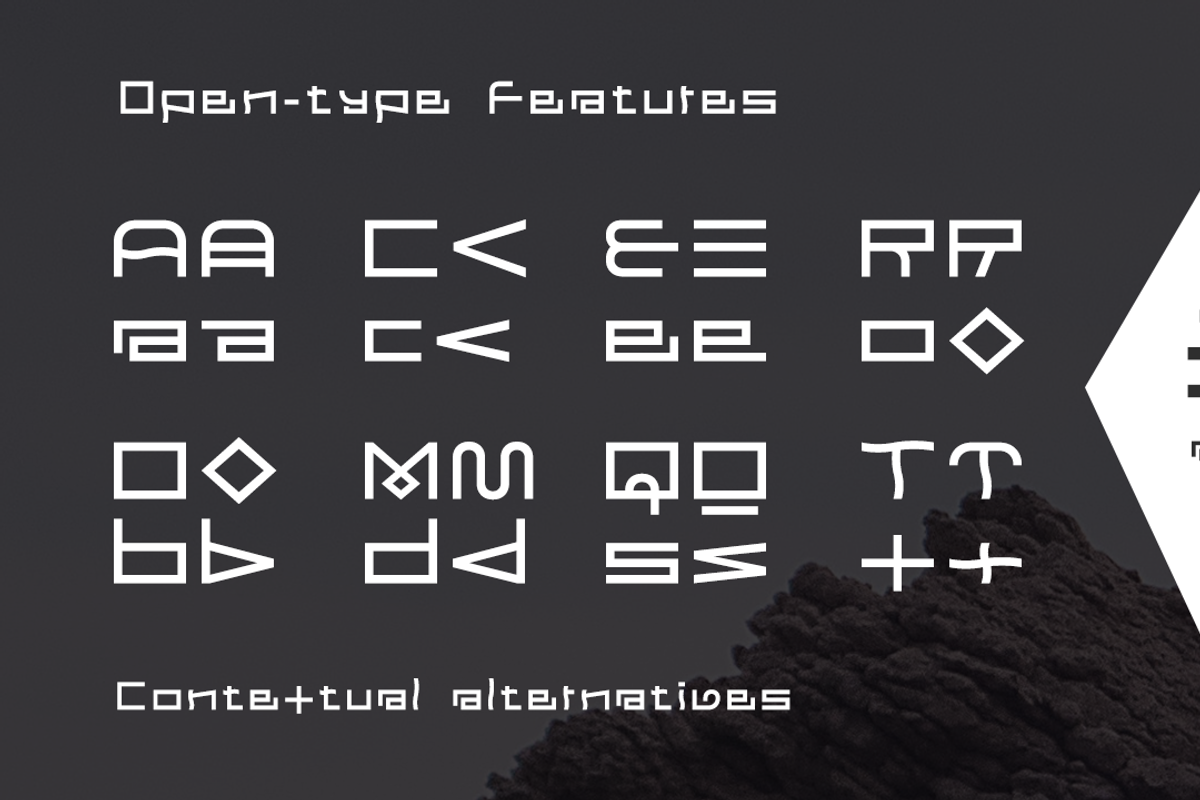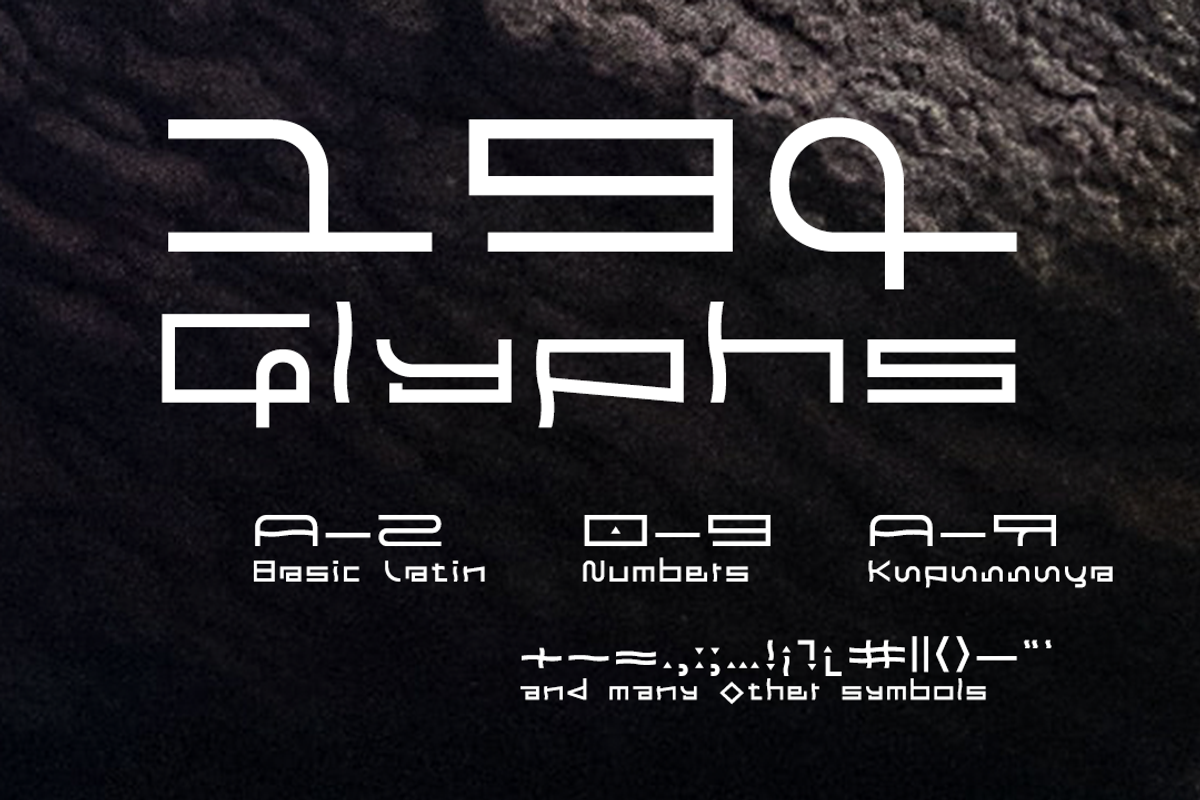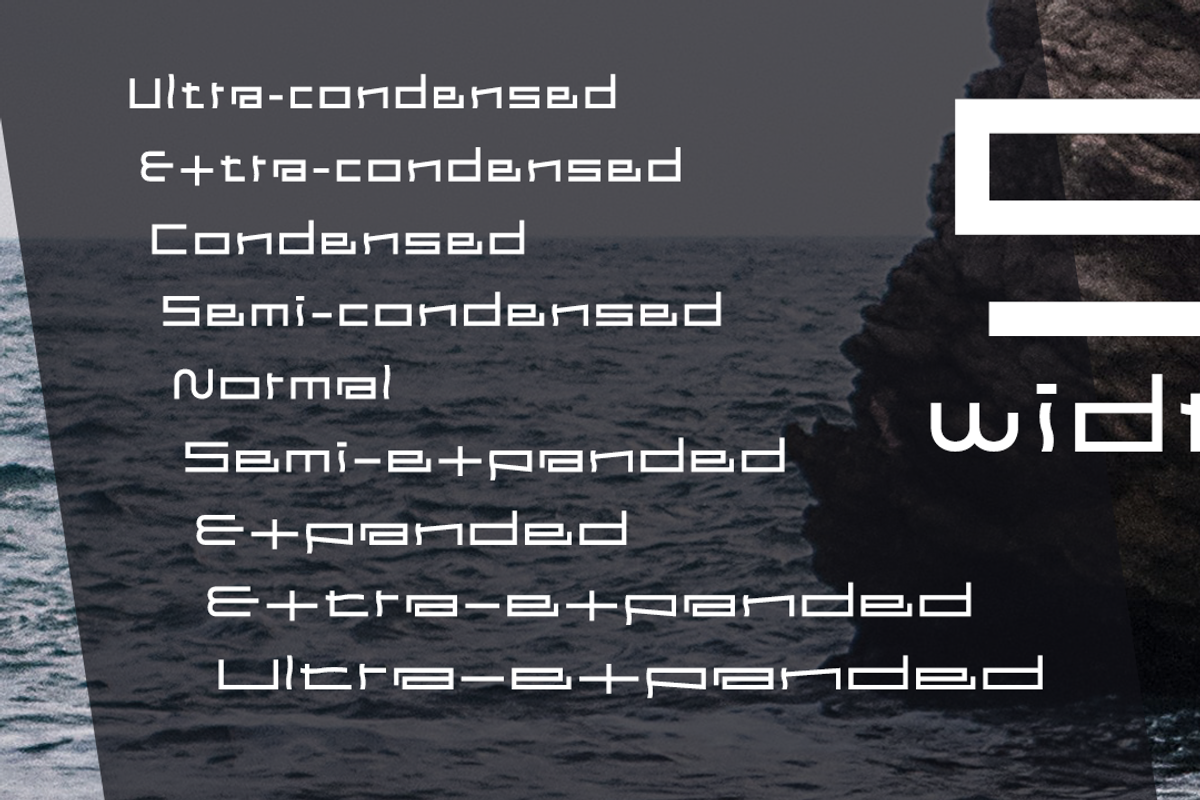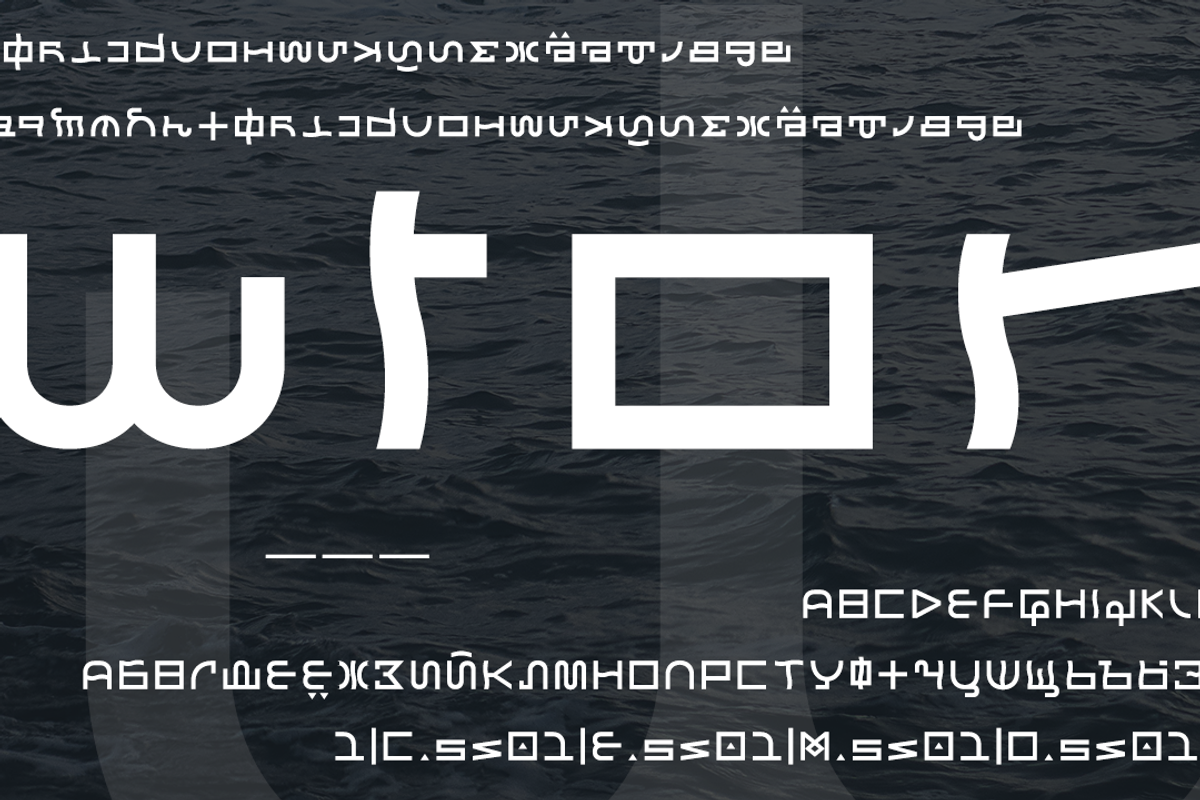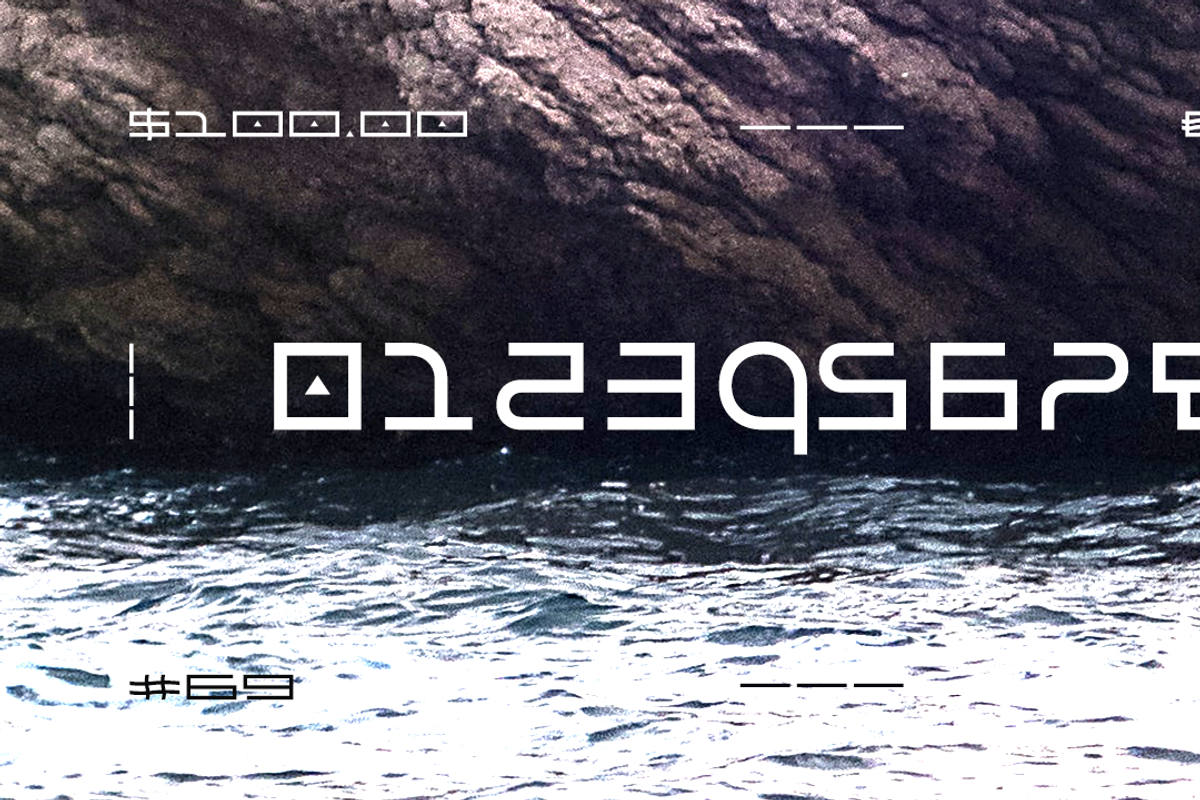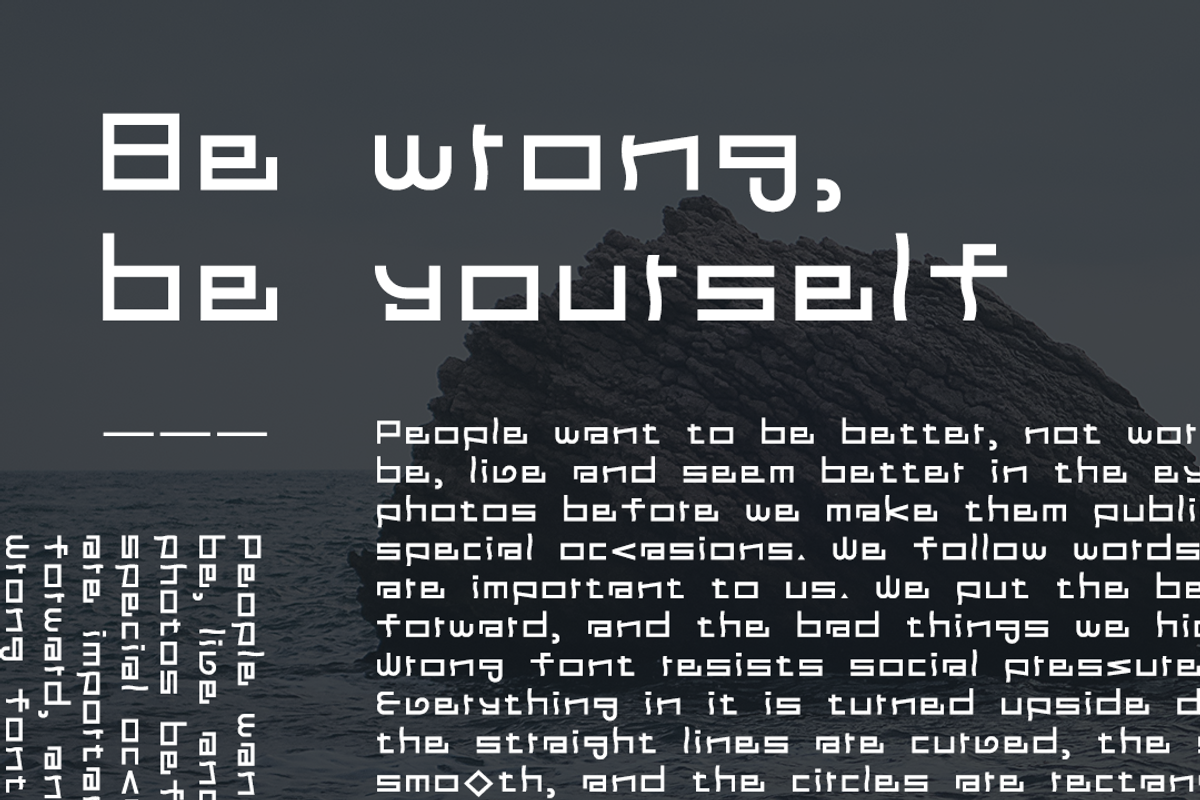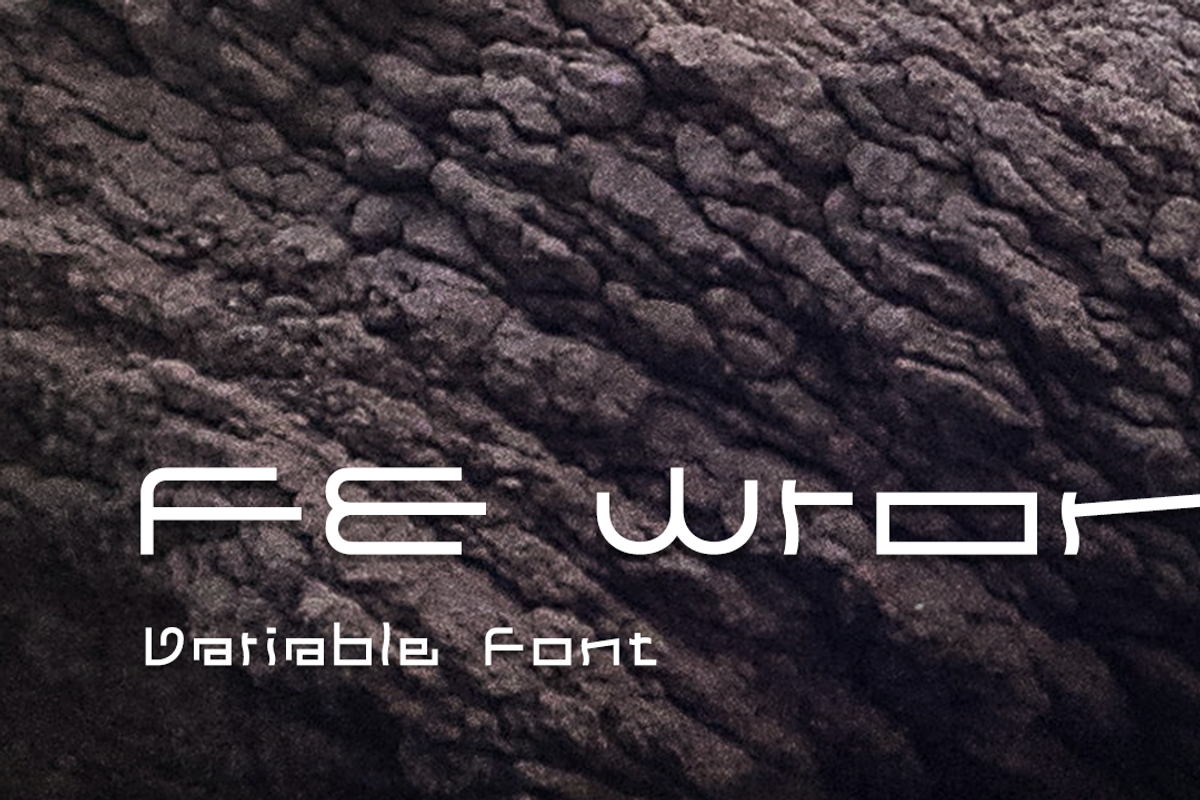
FE Wrong
People want to be better, not worse.
Everyone wants to be, live and seem better in the eyes of others. We improve photos before we make them public. We dress up for special occasions. We follow words in front of people who are important to us. We put the best of our actions forward, and the bad things we hide or keep quiet...
FE Wrong font resists social pressure and stereotypes. Everything in it is turned upside down and designed to be wrong. All the straight lines are curved, the sharp corners are smooth, and the circles are rectangles.
The accretion of the font allows it to be used in a wide range of purposes. It will be useful wherever you need to go against established traditions and logic. A bright and expressive character will attract the eye and make a revolution in any environment.
It is a good reason to do something outstanding.